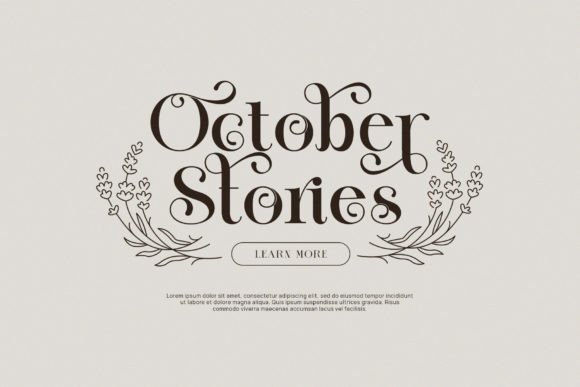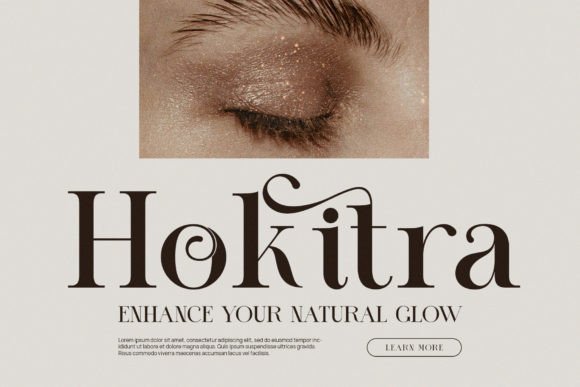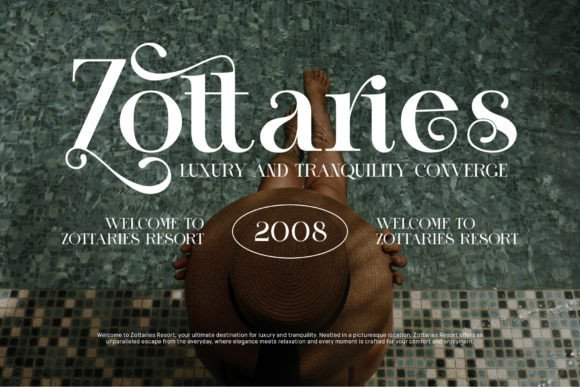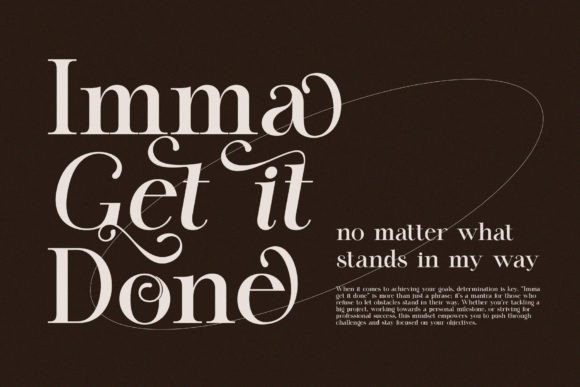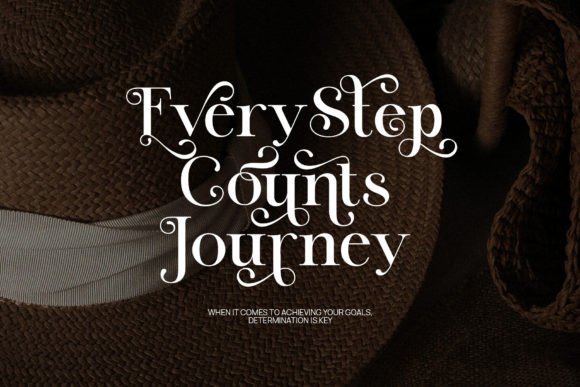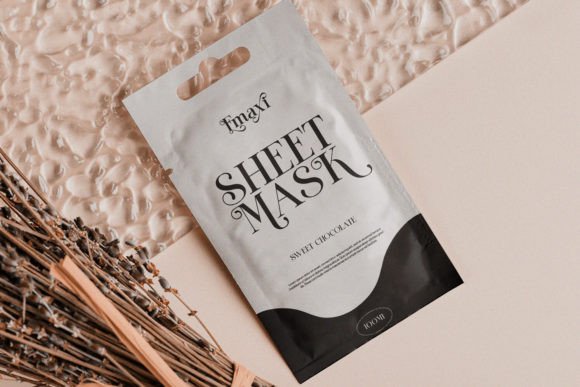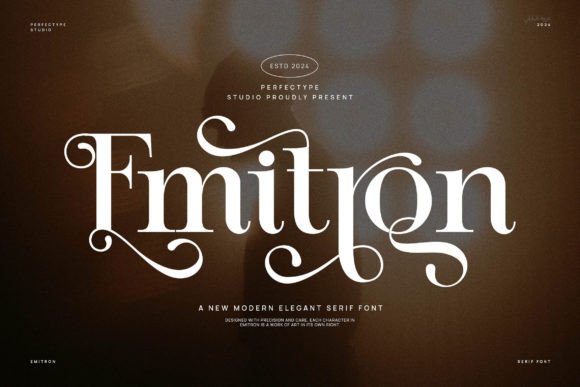
Introducing Emitron Font: Elevate Your Designs with Elegance and Sophistication
In the world of typography, fonts play a crucial role in conveying messages, evoking emotions, and creating visual identities. For designers and crafters, finding the perfect font can be a daunting task, especially when it comes to creating stunning posters, flyers, and other visual materials. This is where Emitron Font comes into play – a modern and elegant serif font designed to make your designs stand out.
What is Emitron Font?
Emitron Font is a beautifully crafted serif font that exudes elegance and sophistication. Its modern design makes it an excellent choice for a wide range of design projects, from posters and flyers to logos and branding materials. The font’s bold and elegant serif characters are specifically designed to make headlines and key information pop, grabbing the attention of your audience and leaving a lasting impression.
Key Features of Emitron Font
- Modern and Elegant Design: Emitron Font boasts a sleek and contemporary design that will elevate your designs to the next level.
- Sophisticated Serif Characters: The font’s serif characters are carefully crafted to add a touch of elegance and refinement to your designs.
- Excellent for Headlines and Key Information: The bold and elegant design of Emitron Font makes it perfect for creating eye-catching headlines and highlighting important information.
- Versatile and Flexible: Emitron Font can be used for a wide range of design projects, from posters and flyers to logos and branding materials.
Benefits of Using Emitron Font
Using Emitron Font in your designs can have a significant impact on the overall aesthetic and effectiveness of your visual materials. Here are some benefits of using Emitron Font:
- Enhanced Visual Appeal: Emitron Font’s elegant and modern design will add a touch of sophistication to your designs, making them more visually appealing.
- Increased Readability: The font’s clear and legible design ensures that your message is conveyed clearly and effectively.
- Improved Brand Identity: Emitron Font can help you create a consistent visual identity for your brand, setting you apart from the competition.
Tips for Using Emitron Font Effectively
To get the most out of Emitron Font, here are some tips to keep in mind:
- Use it for Headlines and Titles: Emitron Font is perfect for creating eye-catching headlines and titles that grab attention.
- Pair it with Other Fonts: Experiment with pairing Emitron Font with other fonts to create a unique and visually appealing typography.
- Adjust Font Size and Style: Play around with different font sizes and styles to create visual hierarchy and emphasis.
Emitron Font is a powerful tool for designers and crafters looking to elevate their designs with elegance and sophistication. Its modern and elegant serif design makes it perfect for creating eye-catching posters, flyers, and other visual materials. With its versatility, flexibility, and range of benefits, Emitron Font is an excellent addition to any designer’s toolkit.